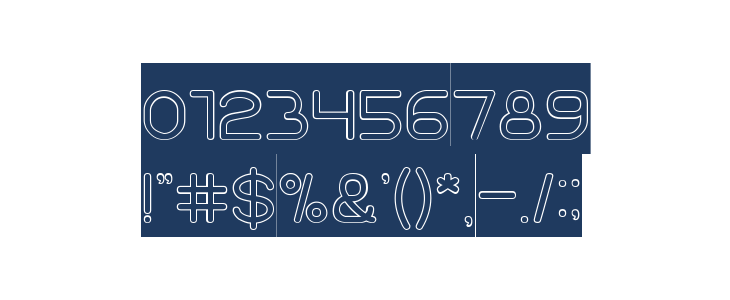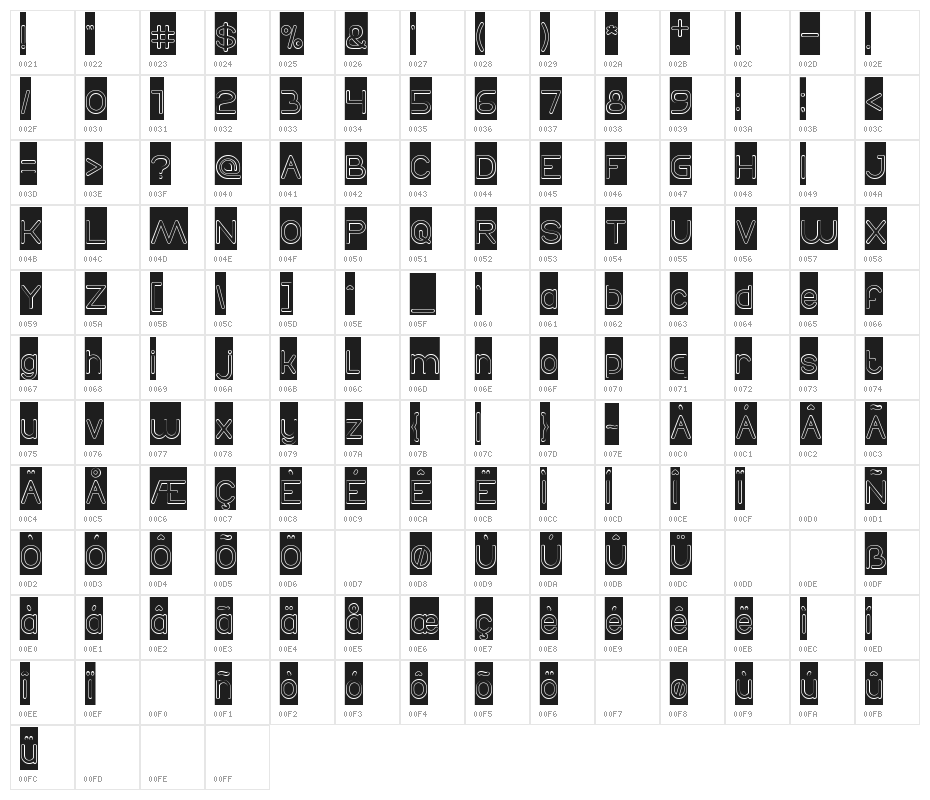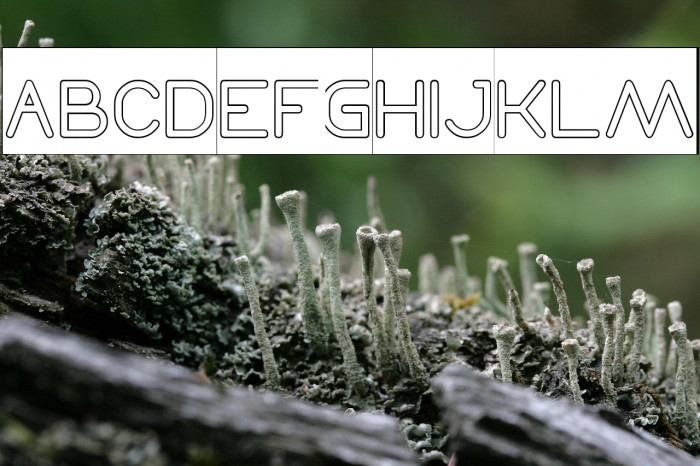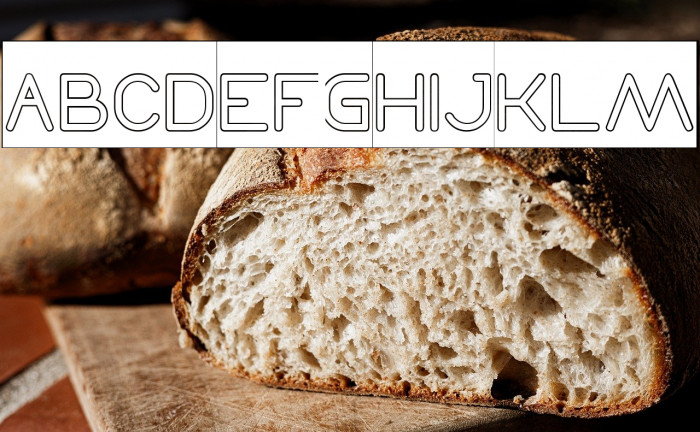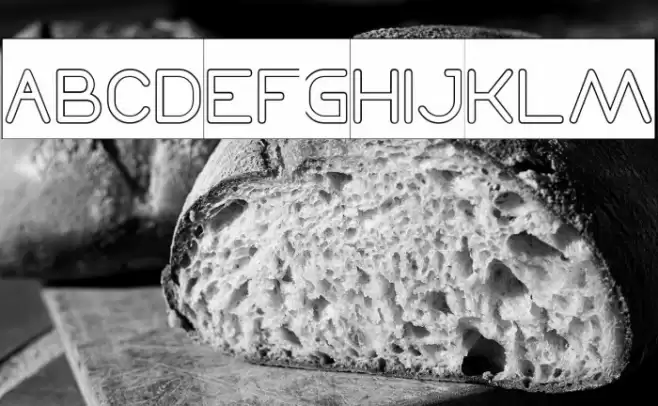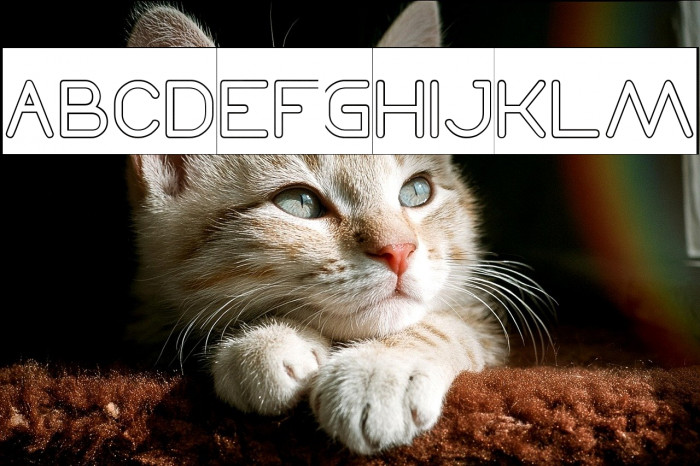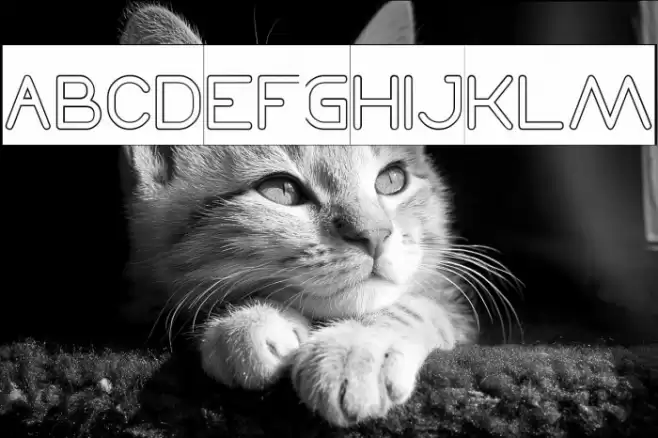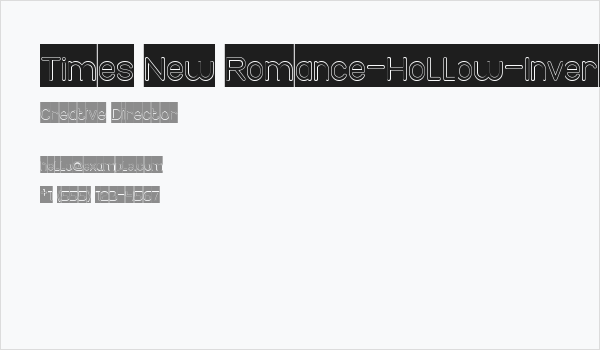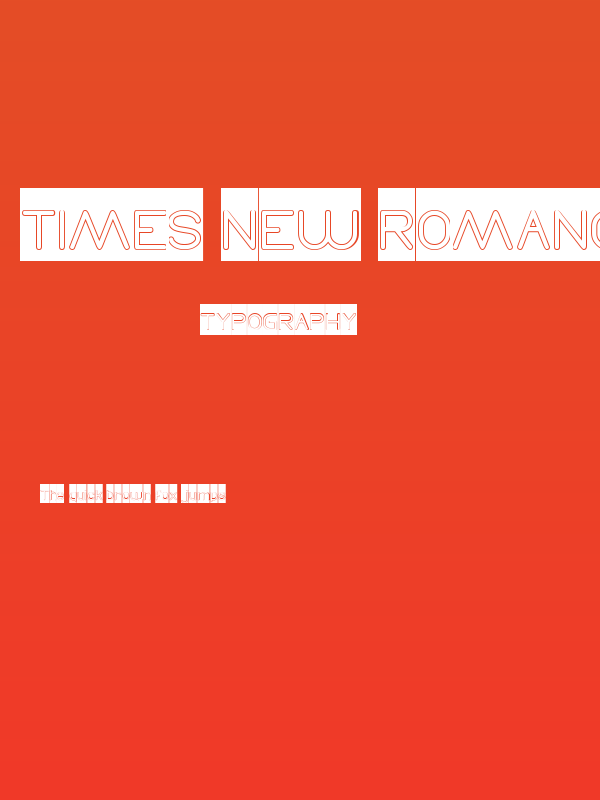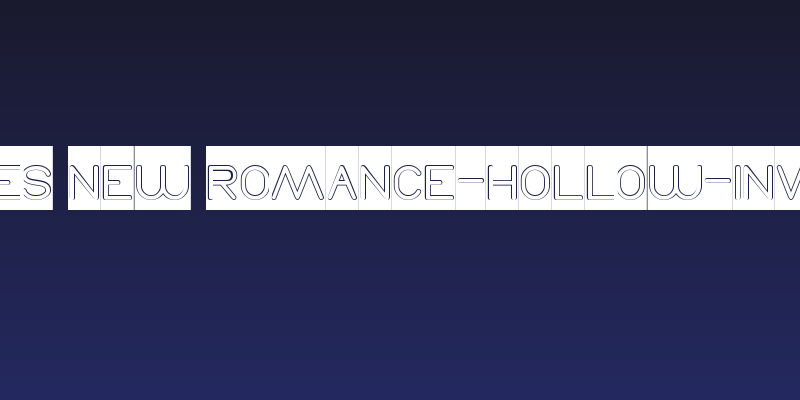
Times New Romance-Hollow-Invers Font
Times New Romance-Hollow-Invers Description
This font features a hollow, outlined design that gives it a modern and sleek appearance. The characters are evenly spaced with a consistent stroke width, creating a clean and minimalistic look. The uppercase and lowercase letters maintain a uniform style, with rounded edges that add a touch of softness to the overall design. The numerals and special characters are crafted with the same attention to detail, ensuring a cohesive appearance across all elements. This font's hollow nature allows it to stand out against various backgrounds, making it versatile for different design needs.
| Proposed Projects | Ideal for modern branding, digital media, posters, and creative projects requiring a unique and eye-catching typeface. |